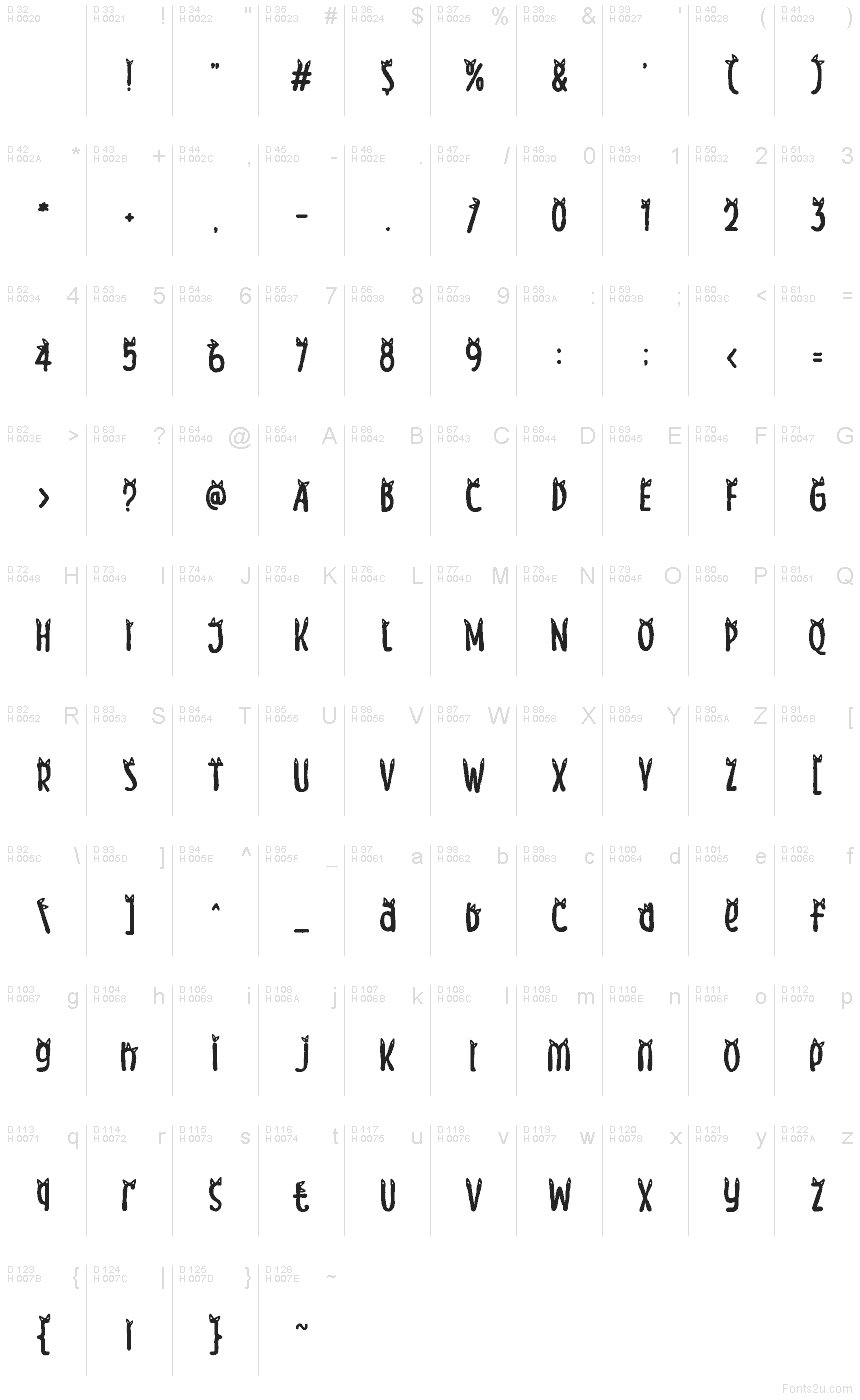
Meow Zilla Cat 3
Meow Zilla Cat 3 font by PutraCetol Studio is a free bold hand-drawn decorative font in the Meow Zilla family. Tall, bouncy letters sprout tiny cat-ear accents, and the inky, slightly wobbly strokes give it that warm, doodled-by-hand charm. The narrow forms keep words compact without feeling cramped, while the playful rhythm reads instantly from a distance—a natural fit for anything pet-forward or kid-friendly.
Using Meow Zilla Cat 3, headlines purr on cat café menus, pet boutique logos, children’s book covers, toy packaging, party invites, stickers, and YouTube thumbnails. The consistent vertical texture makes stacked titles tidy, and the ear details add character without overwhelming layouts. Pair this free font with a clean rounded sans for body copy, and bump tracking a hair for all-caps to accentuate its lively bounce.